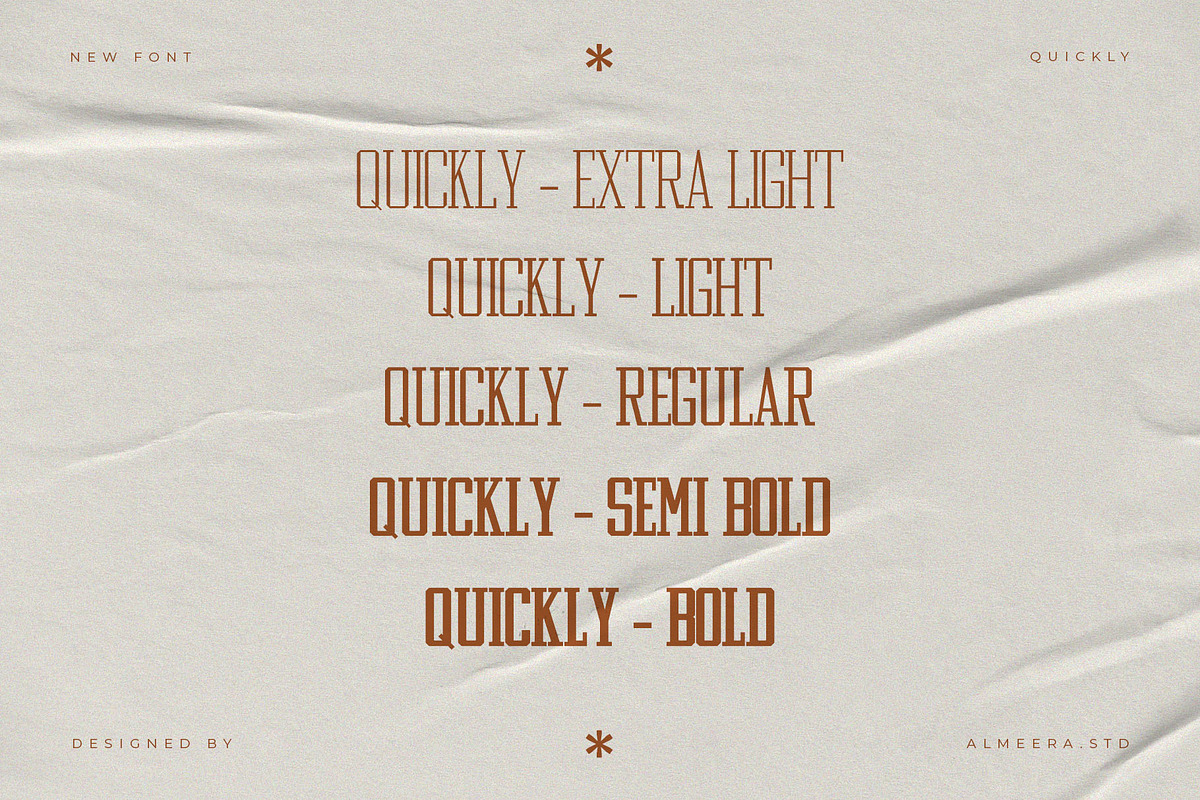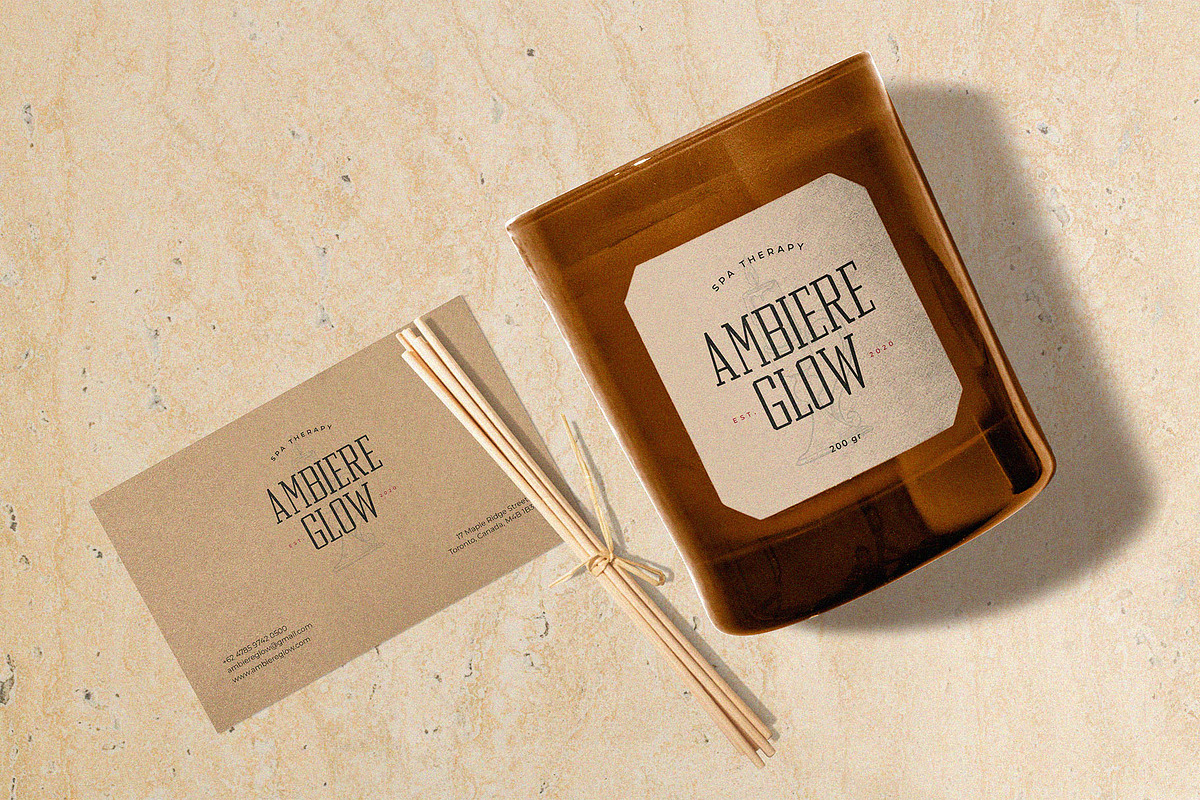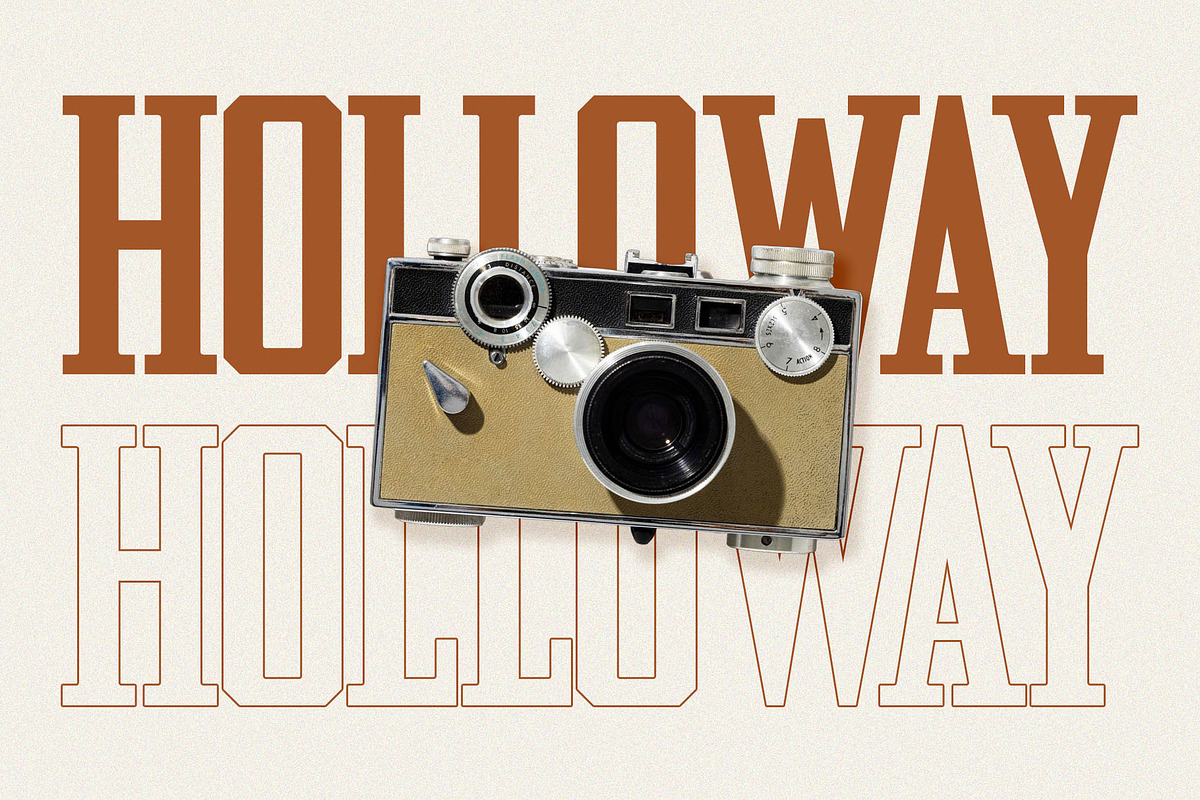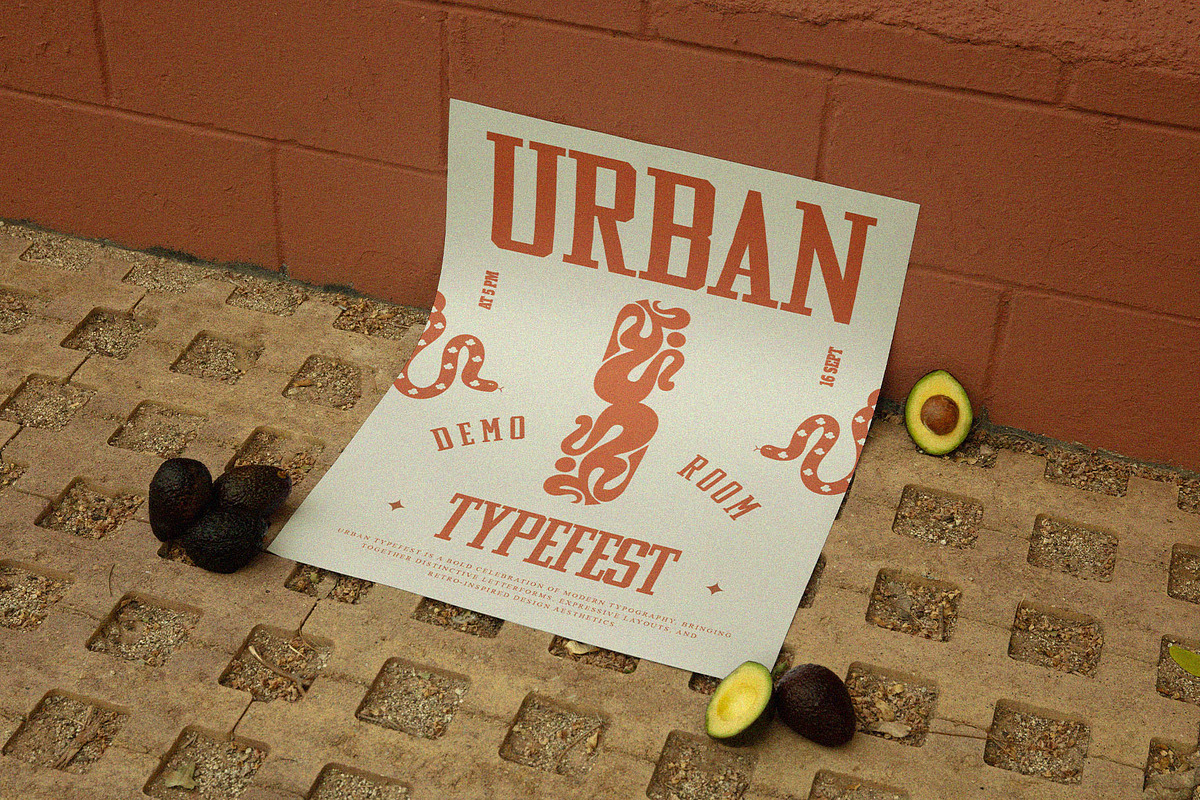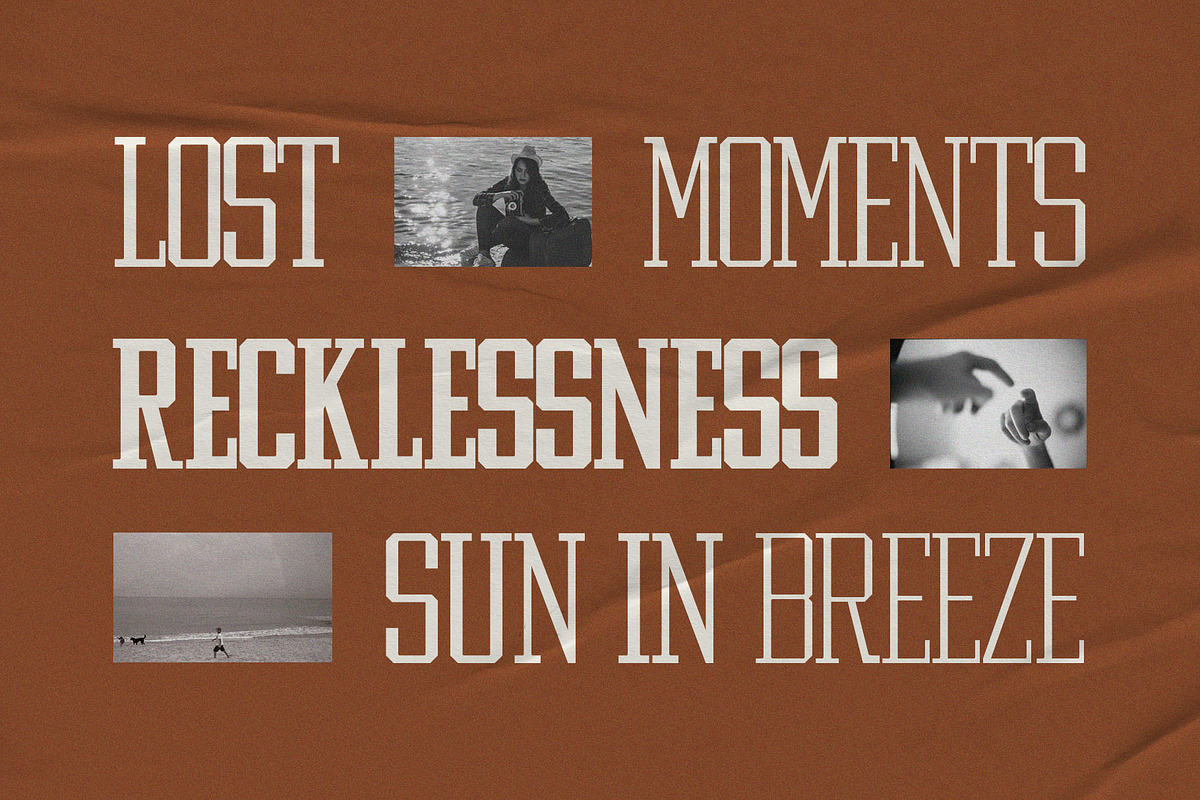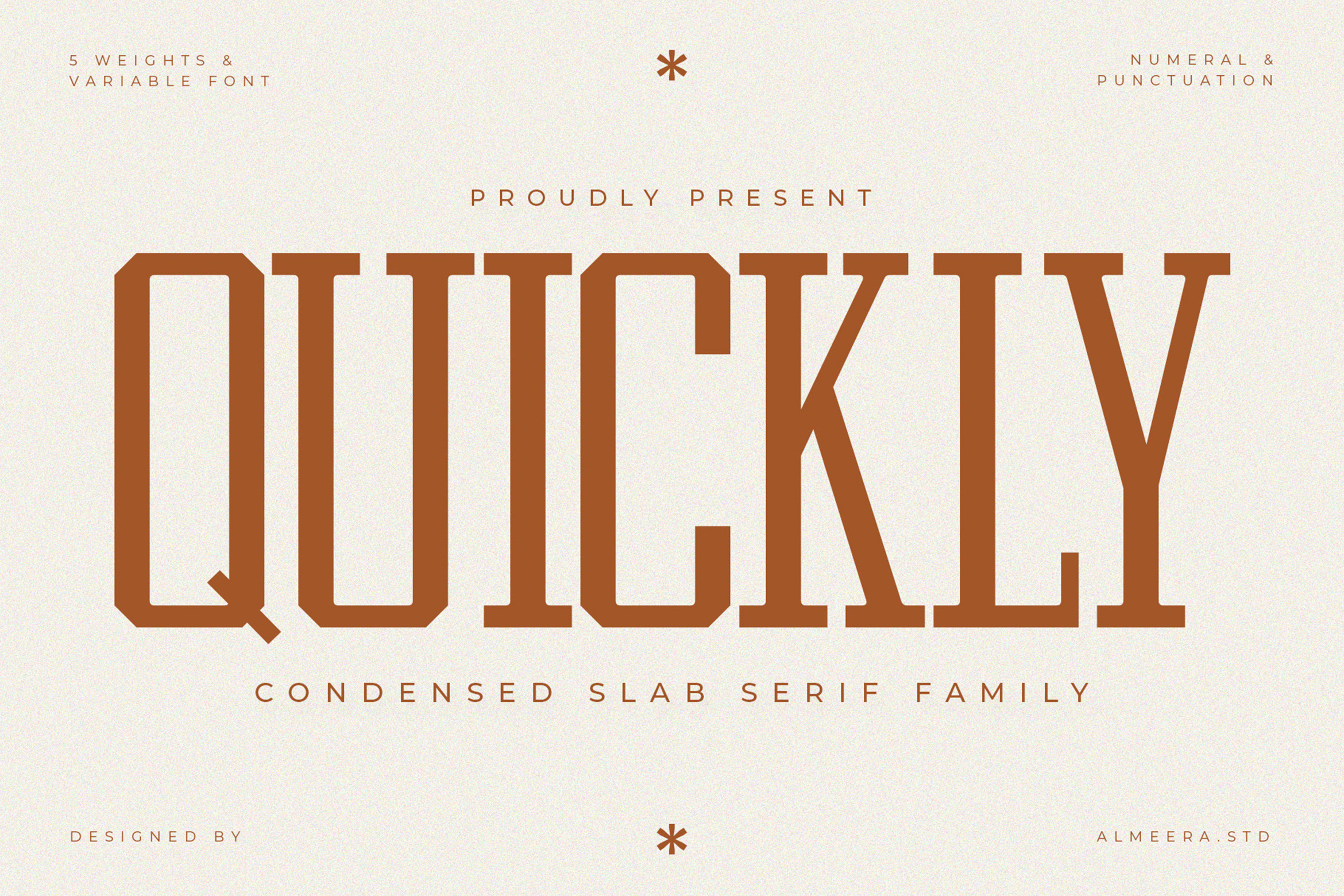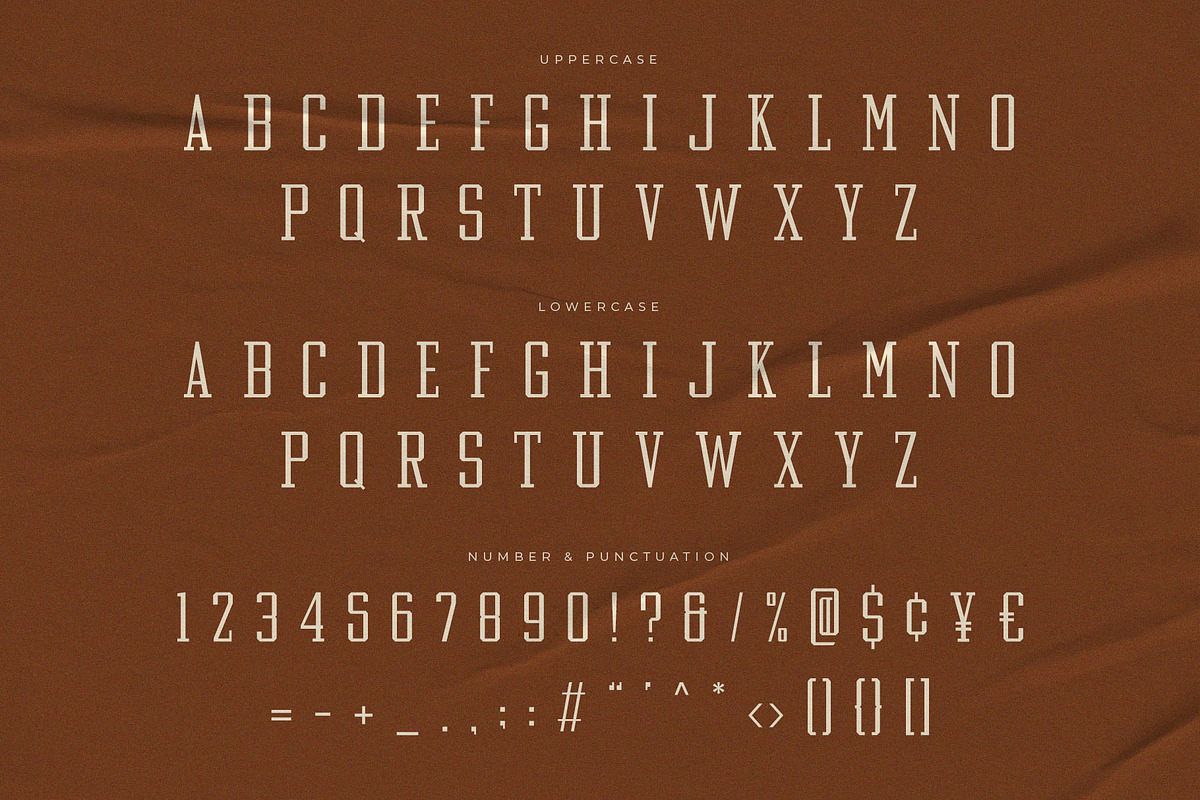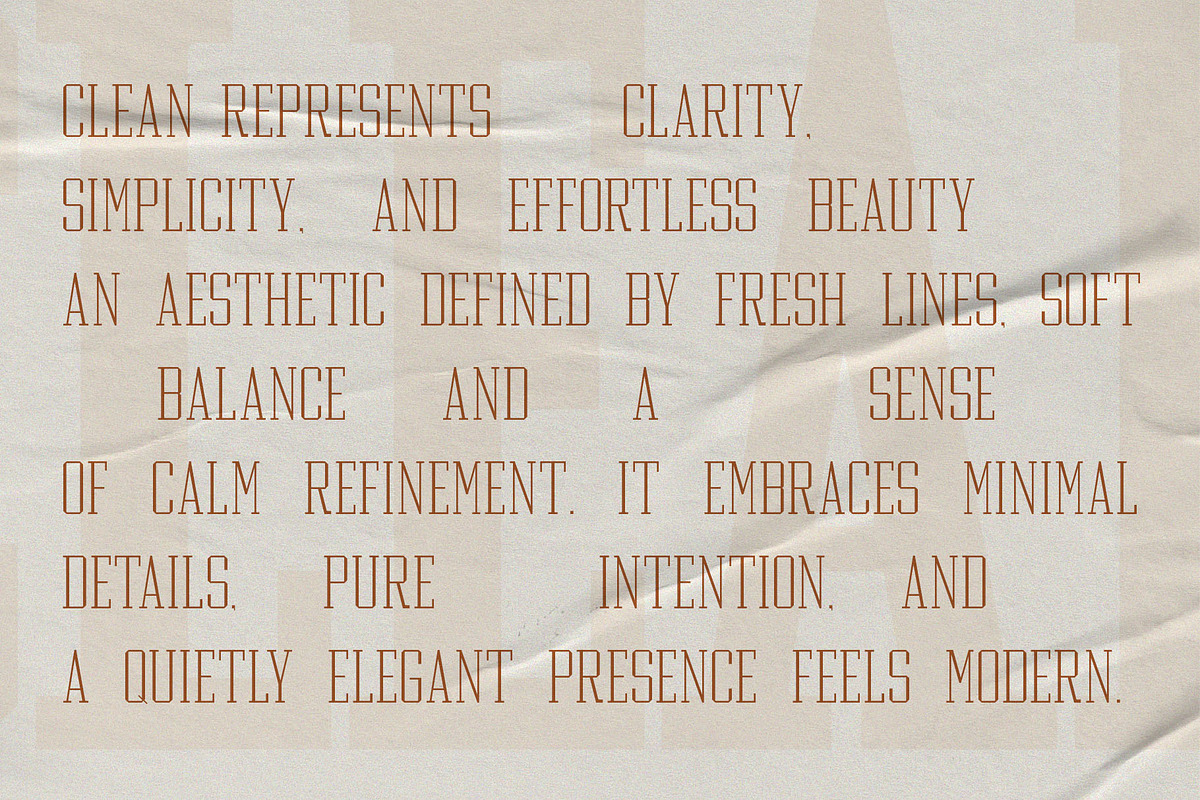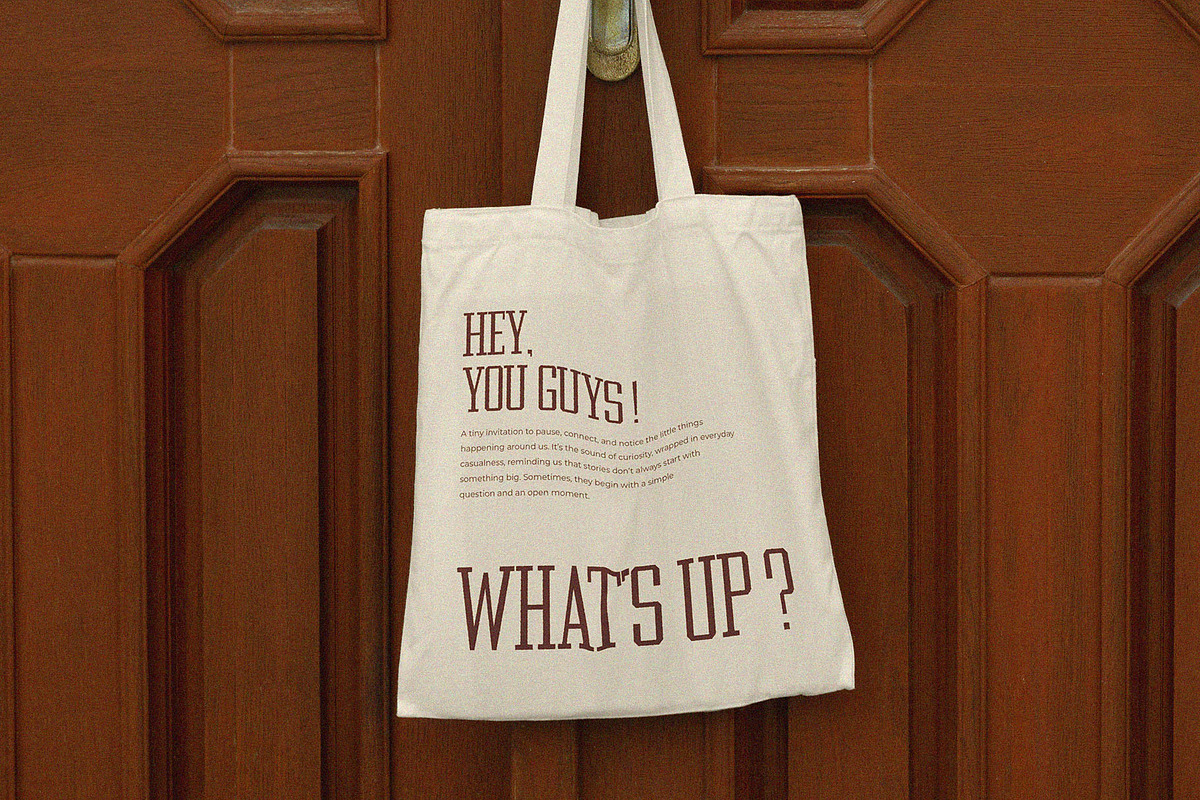
Quickly — Variable Slab Serif Font
Quickly is a condensed slab serif family and variable font. Designed for strong visual impact and modern versatility. With its bold proportions, sturdy slab serifs, and clean vertical rhythm, Quickly delivers clarity and confidence across a wide range of design applications. This typeface works perfectly for headlines, posters, branding systems, editorial layouts, and digital displays where structure and presence are essential.
The family includes 5 weights and a variable font, offering flexibility for responsive design and typographic hierarchy. Complete numerals and punctuation ensure professional usability across projects.